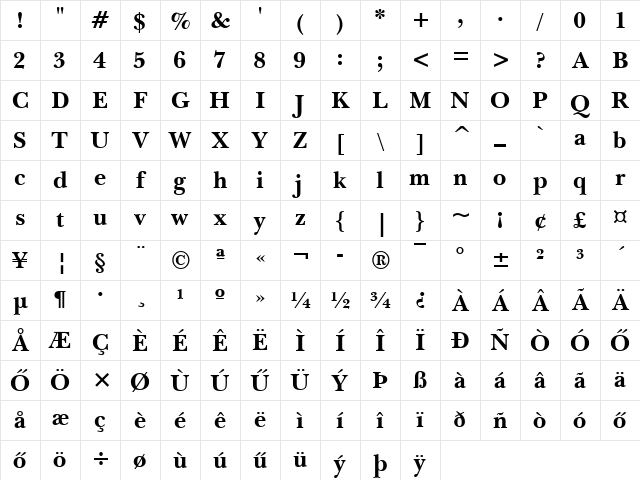
Design Context for Hu_Baskara
Hu_Baskara is a composed and adaptable typeface that performs quietly and consistently across a wide range of design contexts.
Pro Tip: Use Hu_Baskara in both headline and body roles to test its range before committing to a single application.